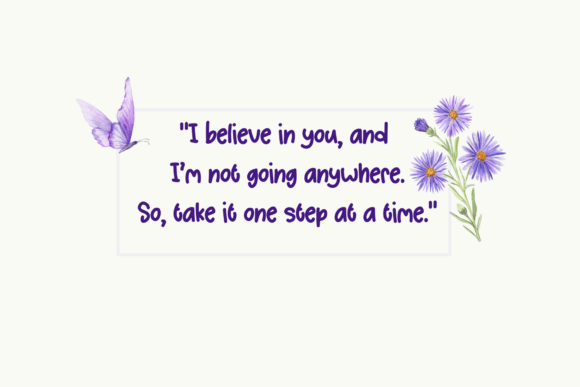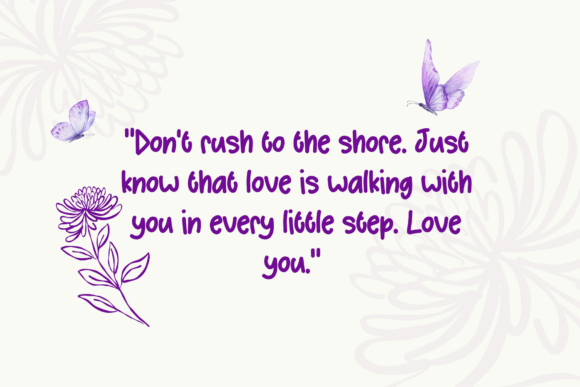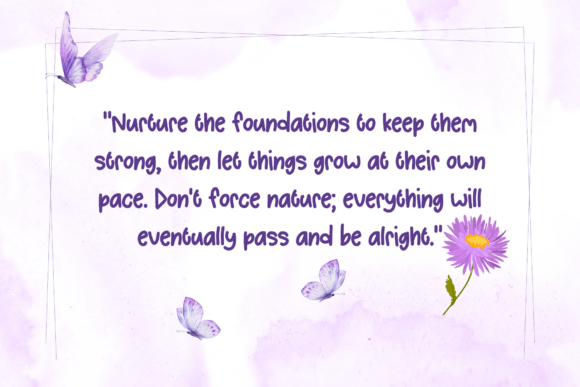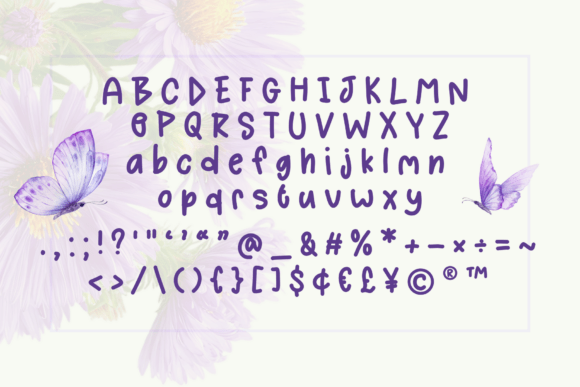
Aster Font: The Whimsical and Friendly Sans-Serif Display Font
Are you looking for a font that can add a touch of whimsy and friendliness to your creative projects? Look no further than Aster Font! This charming sans-serif display font is perfect for designers and crafters who want to create engaging and uplifting content for children, wellness enthusiasts, and anyone looking for a personal touch.
The Characteristics of Aster Font
Aster Font boasts a unique and charming aesthetic that is reminiscent of hand-drawn lettering. Its rounded terminals, organic line weights, and tall x-height give it a soft and approachable feel that is perfect for a variety of creative projects. The font’s playful irregularities in the letterforms add to its whimsical nature, making it a great choice for projects that require a personal touch.
Perfect for Children’s Books and Wellness Branding
Aster Font is an excellent choice for children’s books, as its playful and friendly nature is sure to delight young readers. The font’s “marker-style” appearance adds a personal touch to any story, making it feel like it was drawn especially for the child. Additionally, the font’s soft and approachable feel makes it perfect for wellness branding, where a friendly and approachable tone is essential.
Use Aster Font for Greeting Cards and Social Media Quotes
Aster Font is also a great choice for greeting cards and social media quotes. Its playful and uplifting nature makes it perfect for creating inspiring and motivational content that is sure to resonate with readers. Whether you’re creating a greeting card for a special occasion or crafting a social media post to brighten up someone’s day, Aster Font is a great choice.
The Benefits of Using Aster Font
So why choose Aster Font for your creative projects? Here are just a few benefits of using this charming sans-serif display font:
- Unique and charming aesthetic: Aster Font’s hand-drawn aesthetic sets it apart from other fonts, making it perfect for designers and crafters who want to add a personal touch to their work.
- Playful and friendly nature: The font’s playful irregularities and soft feel make it perfect for projects that require a friendly and approachable tone.
- Versatile: Aster Font can be used for a variety of creative projects, from children’s books to wellness branding, greeting cards, and social media quotes.
- Easy to read: The font’s tall x-height and clear letterforms make it easy to read, even at smaller sizes.
Tips for Using Aster Font
Here are a few tips for using Aster Font in your creative projects:
- Use it for headlines and titles: Aster Font is perfect for headlines and titles, where its playful and friendly nature can shine.
- Pair it with a serif font: For body text, consider pairing Aster Font with a serif font to create a nice contrast and add visual interest.
- Experiment with colors and textures: Aster Font looks great in a variety of colors and textures, so don’t be afraid to experiment and find the perfect combination for your project.
Aster Font is a charming and versatile sans-serif display font that is perfect for designers and crafters who want to add a touch of whimsy and friendliness to their creative projects. Its playful irregularities, soft feel, and “marker-style” appearance make it a great choice for children’s books, wellness branding, greeting cards, and social media quotes. With its unique and charming aesthetic, Aster Font is sure to become a favorite in your font collection.